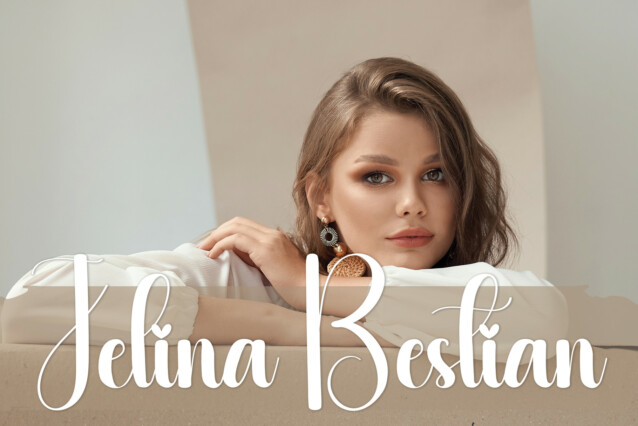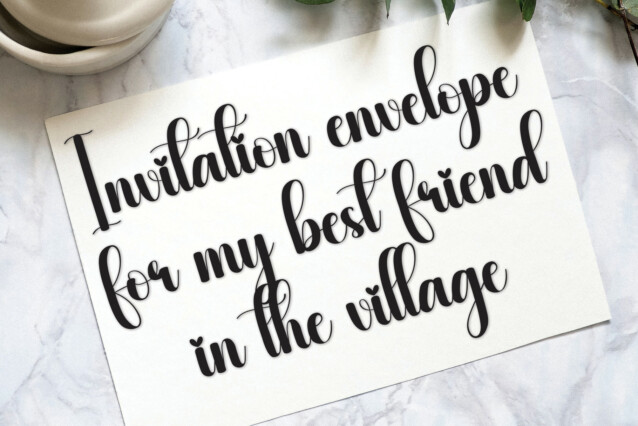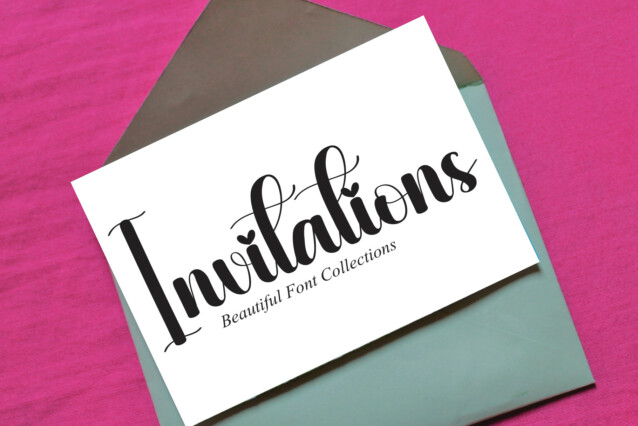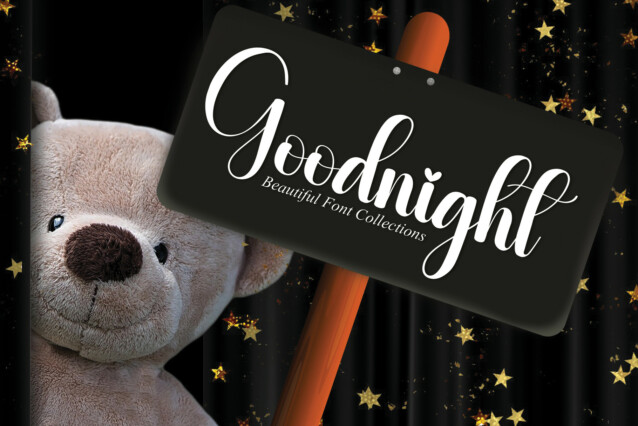
Handcrafted Script Font
Handcrafted Script Font is a sweet handwritten font. Its latest style letters are perfect for wall displays, wedding invitations, social media post logos, advertisements, product packaging, product designs, labels, photography, watermarks, invitations, stationery, and any project that requires taste handwriting.